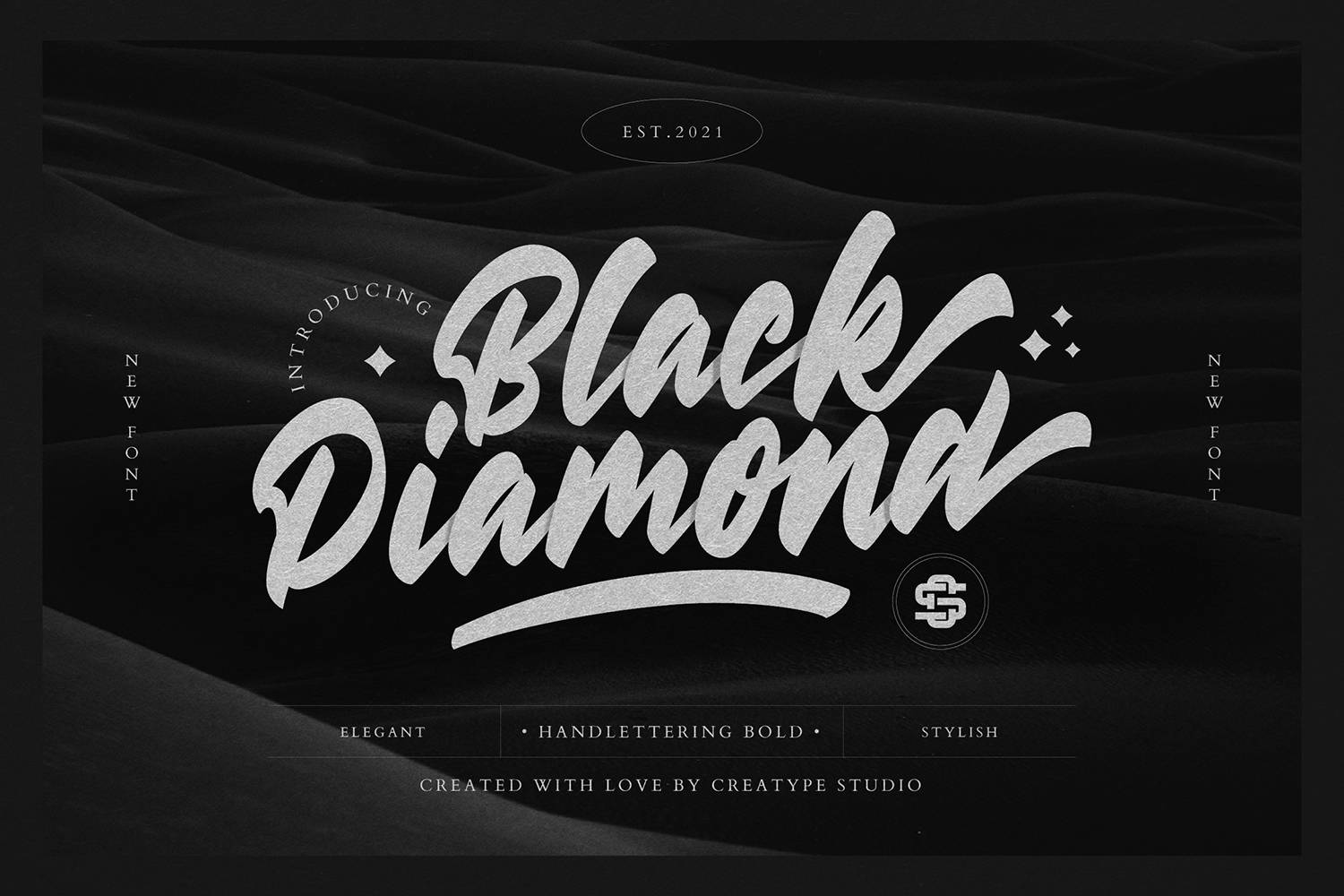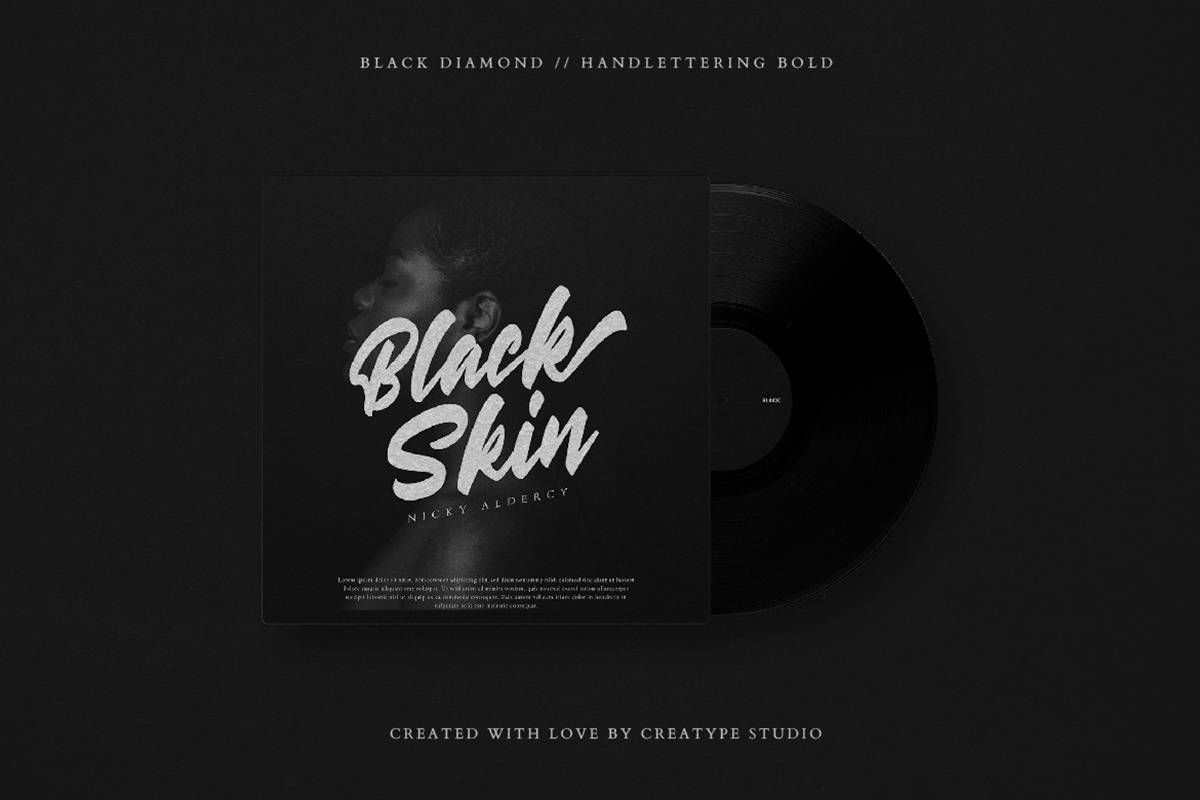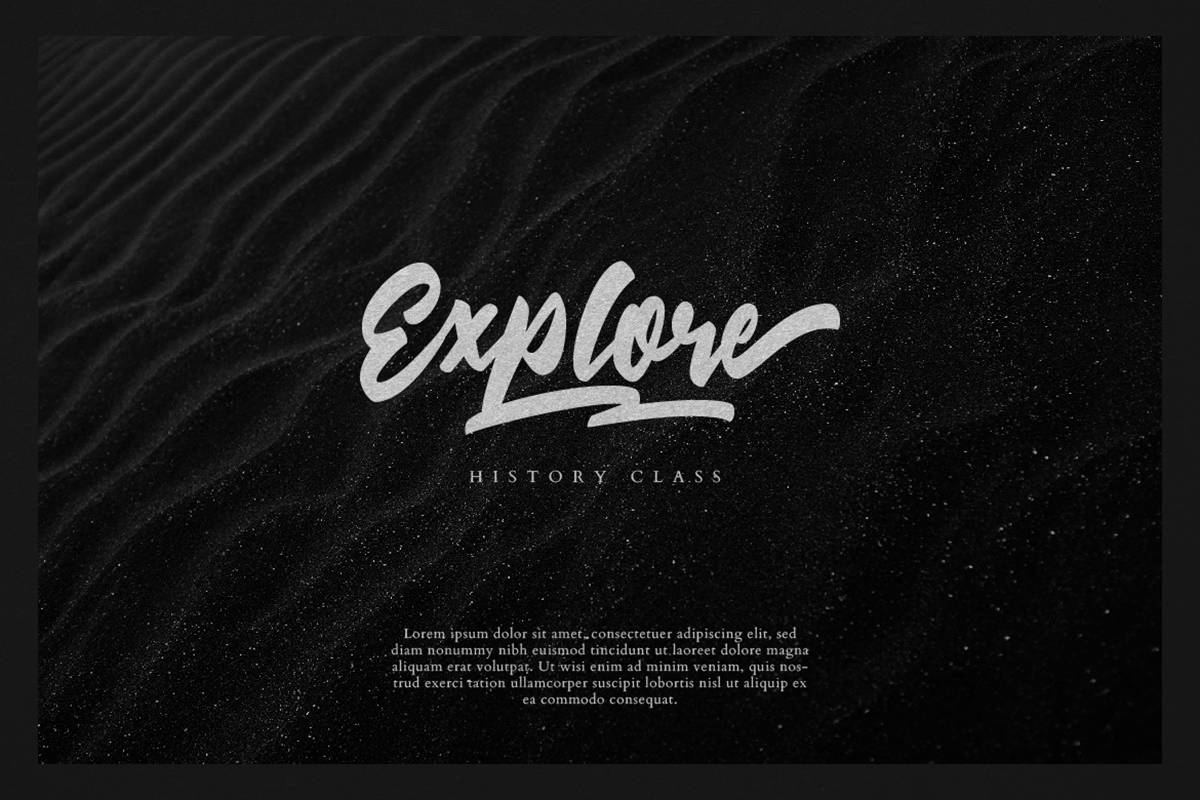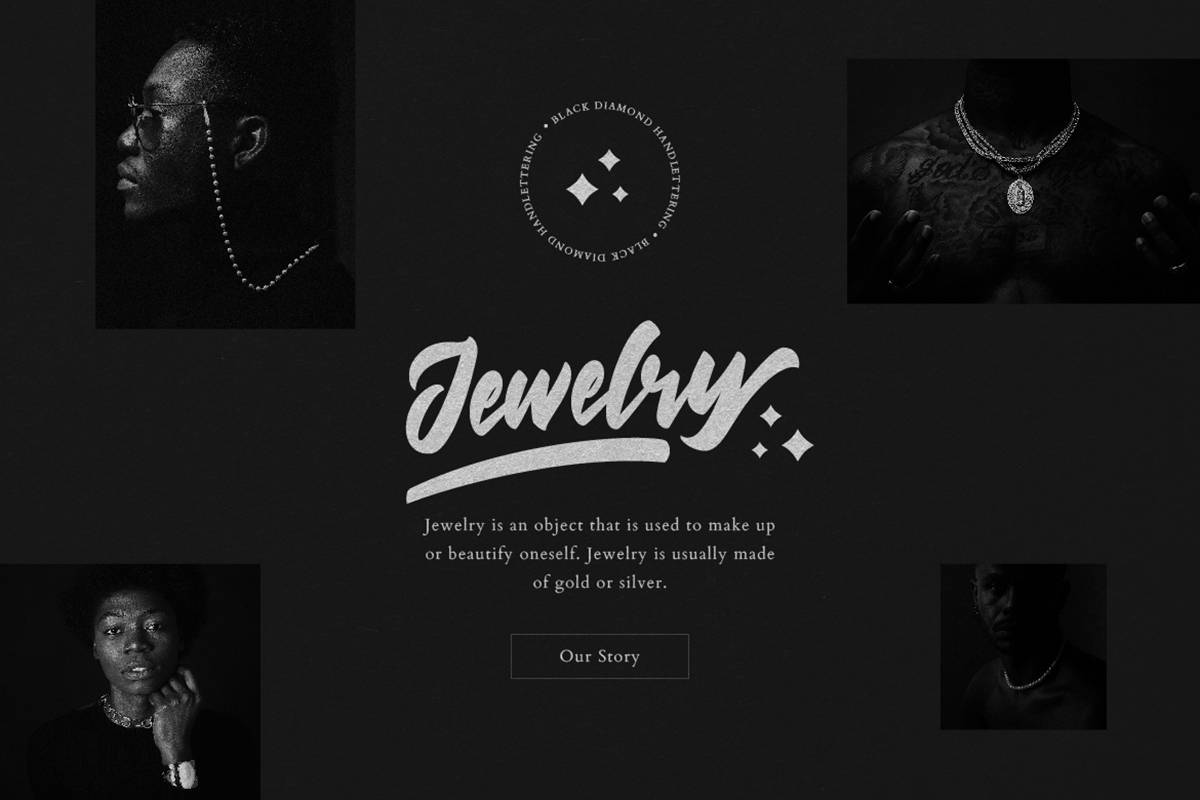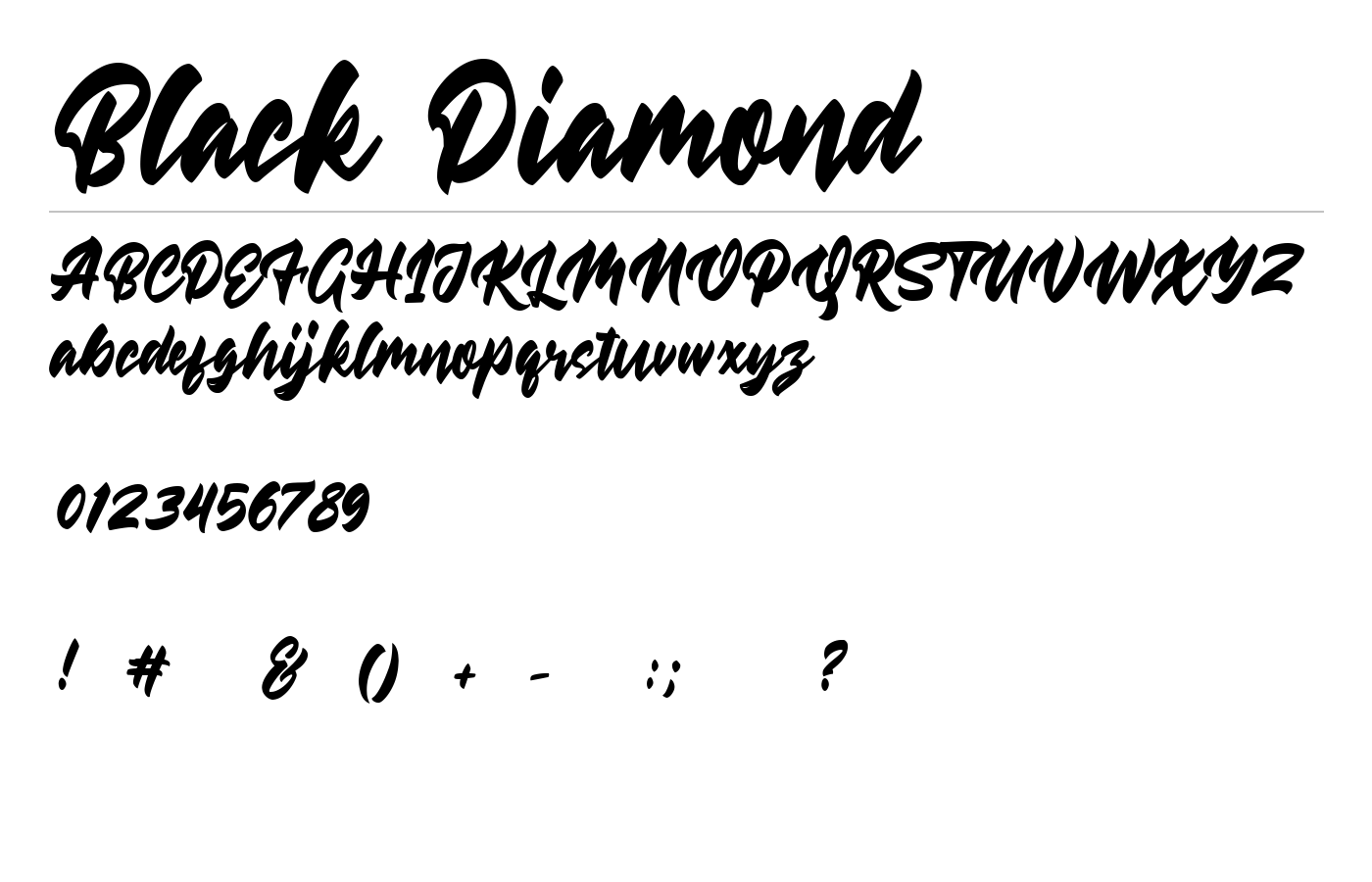
Black Diamond is a bold and energetic script font with a lively, hand-painted feel that combines thick strokes with smooth, rounded edges. Its dynamic style and high contrast make it perfect for creating eye-catching headlines, logos, and branding that want to convey a sense of creativity and modern flair. This font works well for designs needing a personal, artistic touch with a confident, playful vibe.
Black Diamond Font
About Black Diamond Font